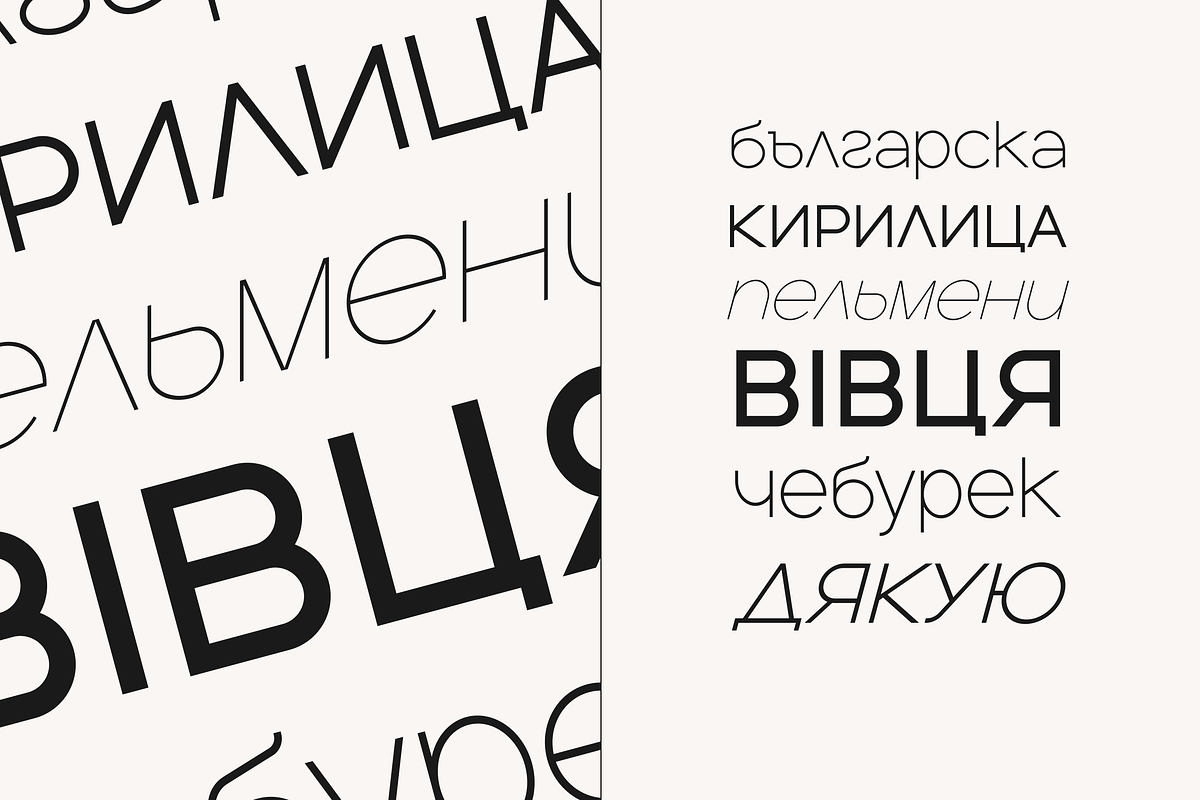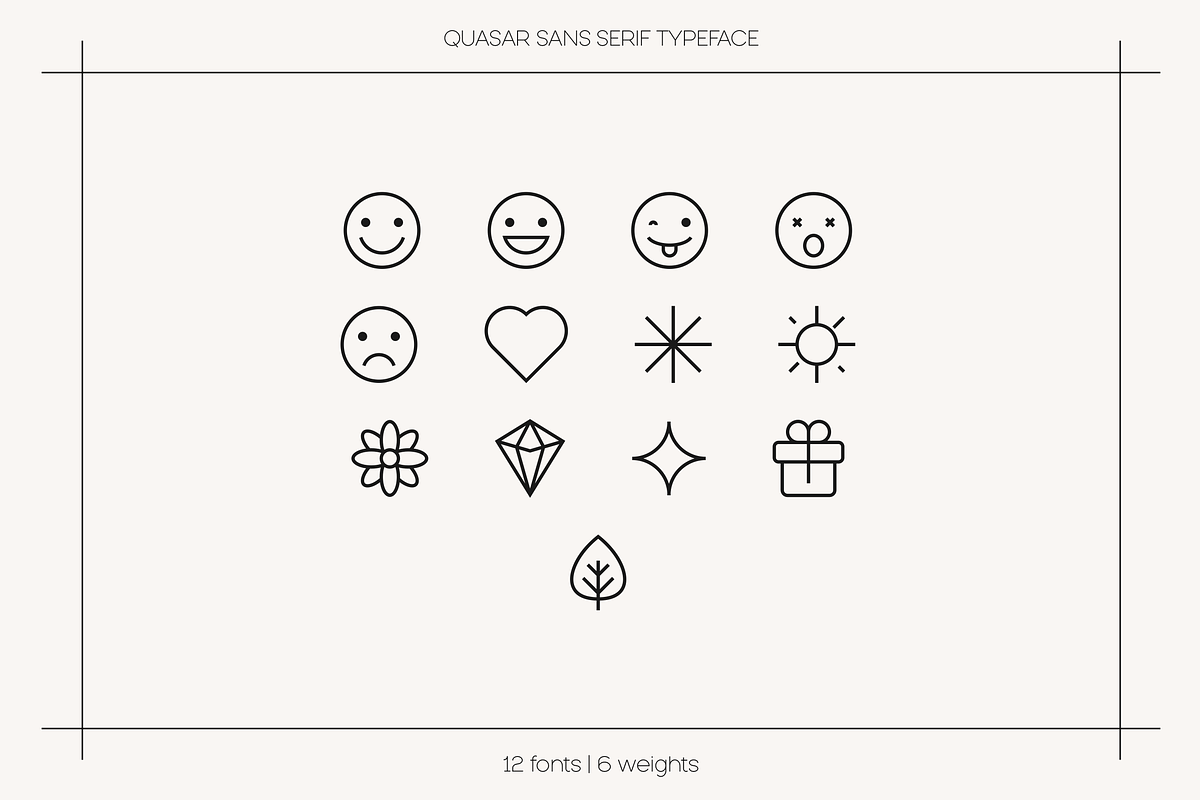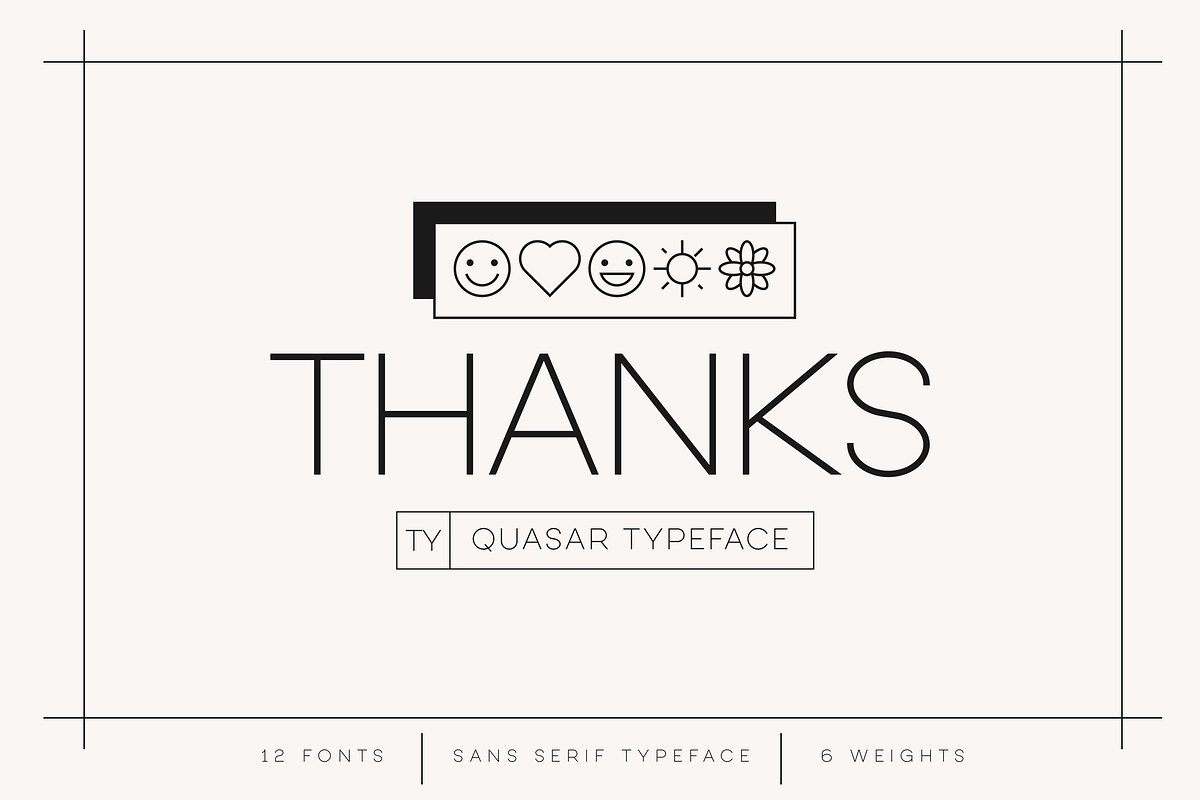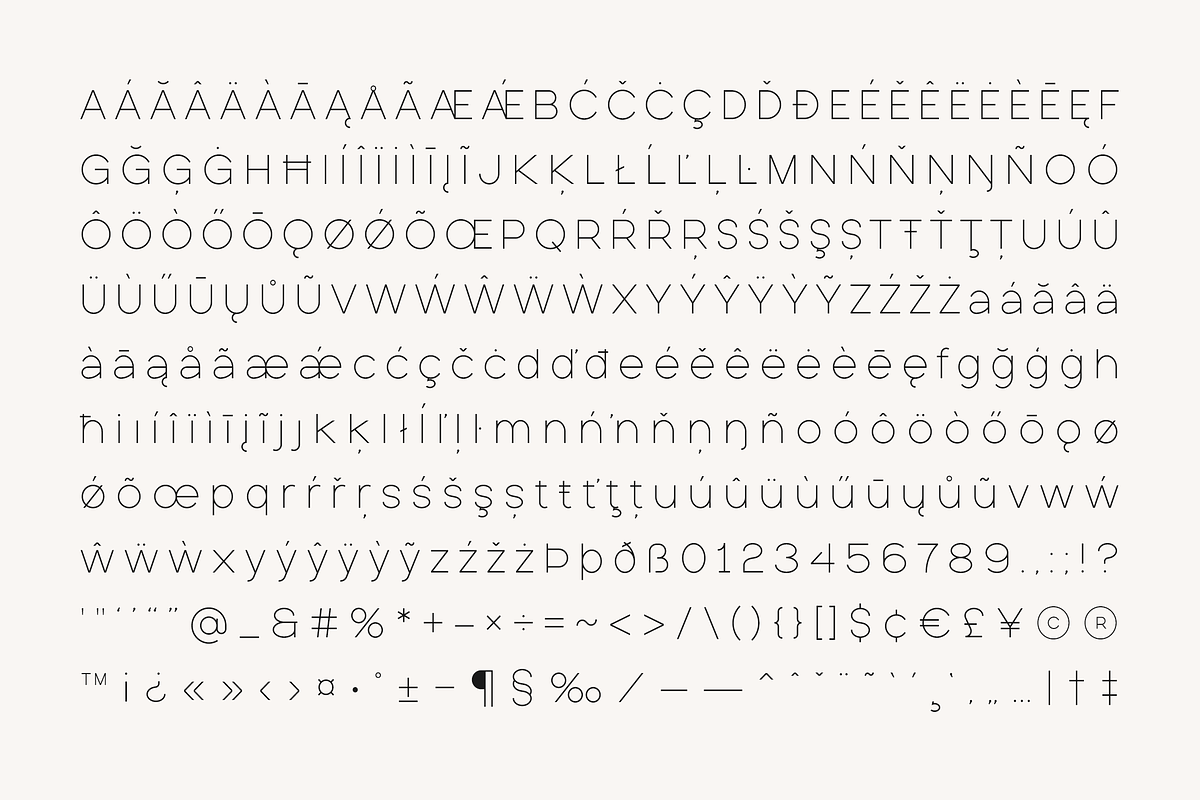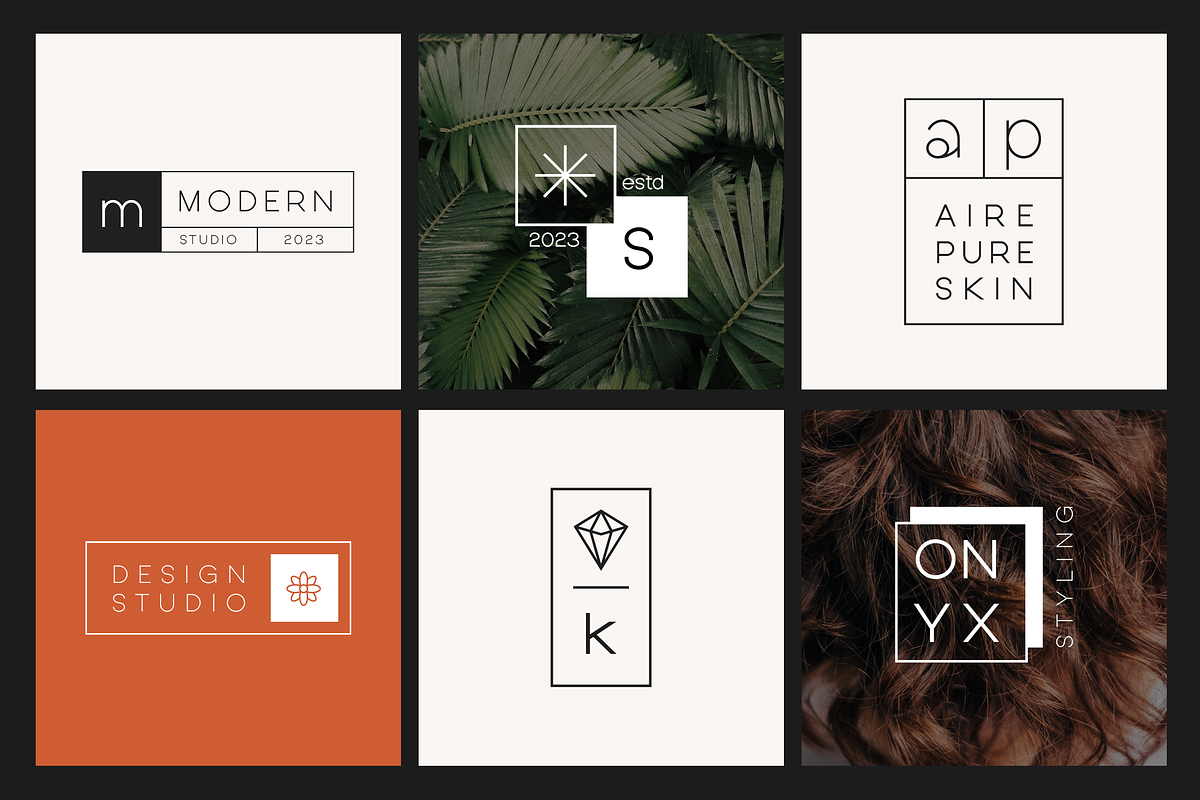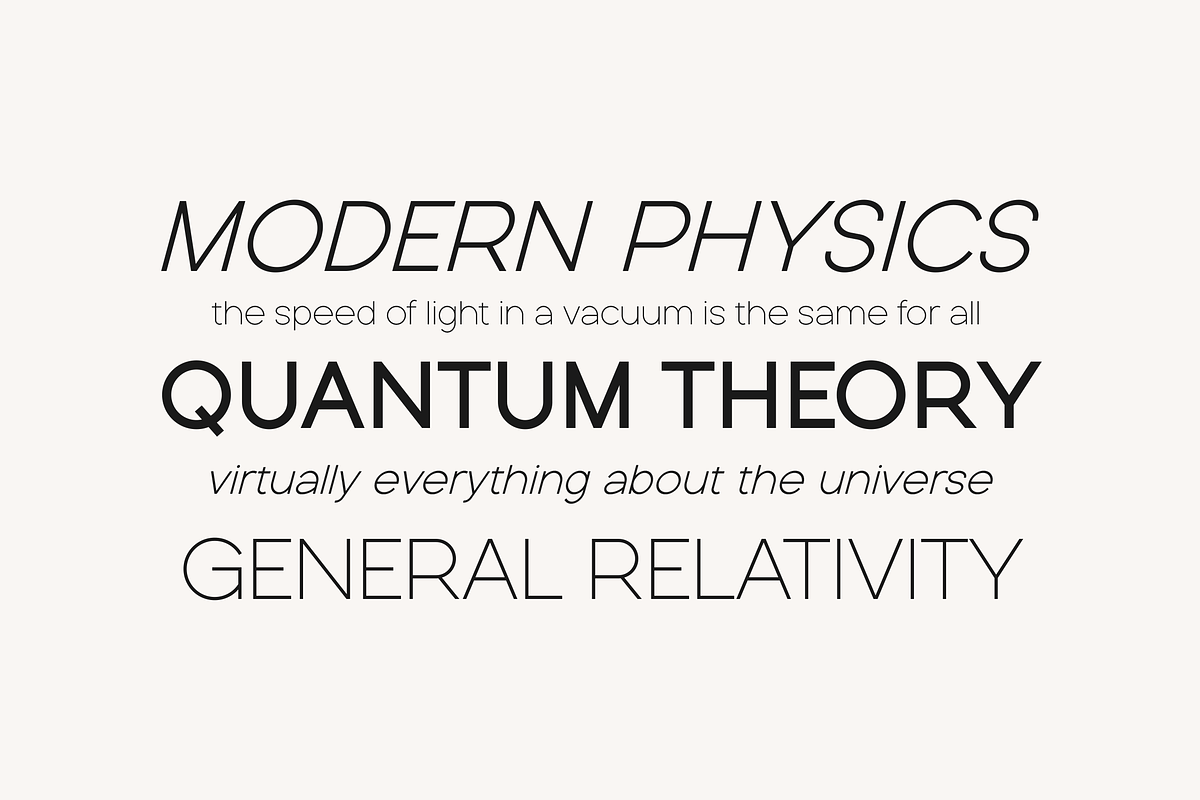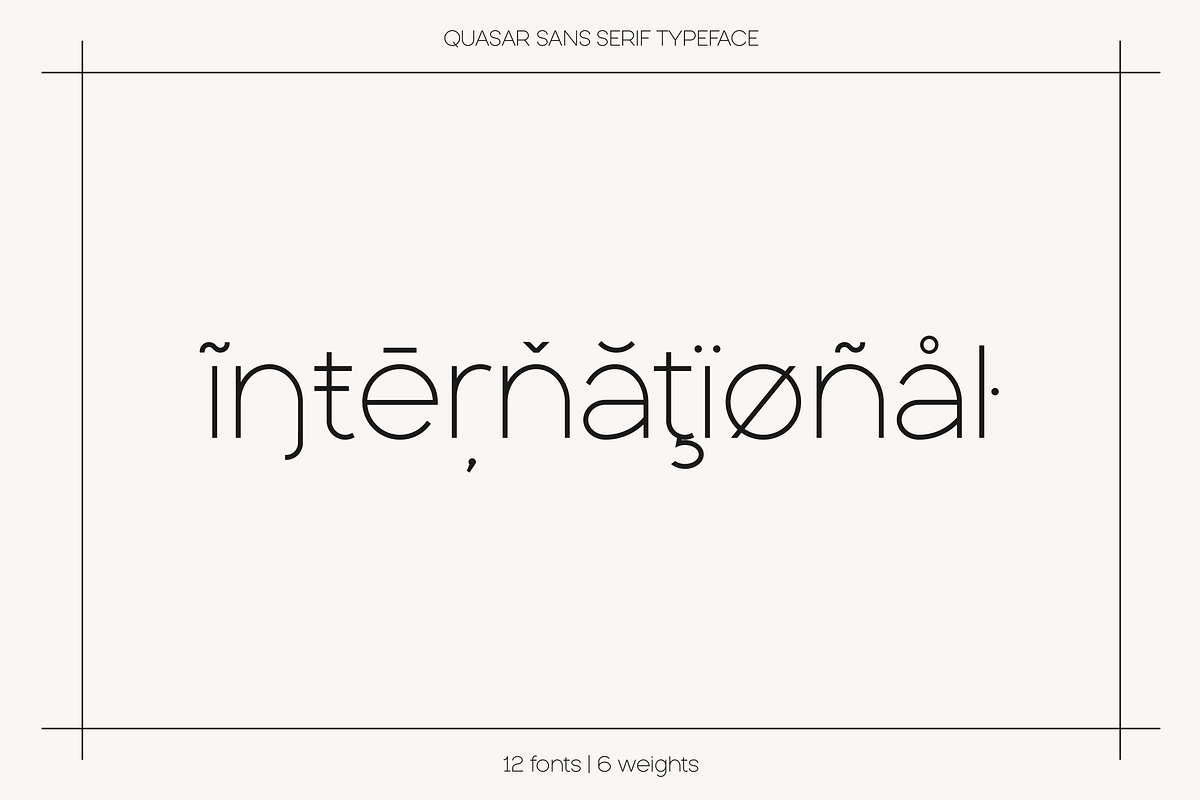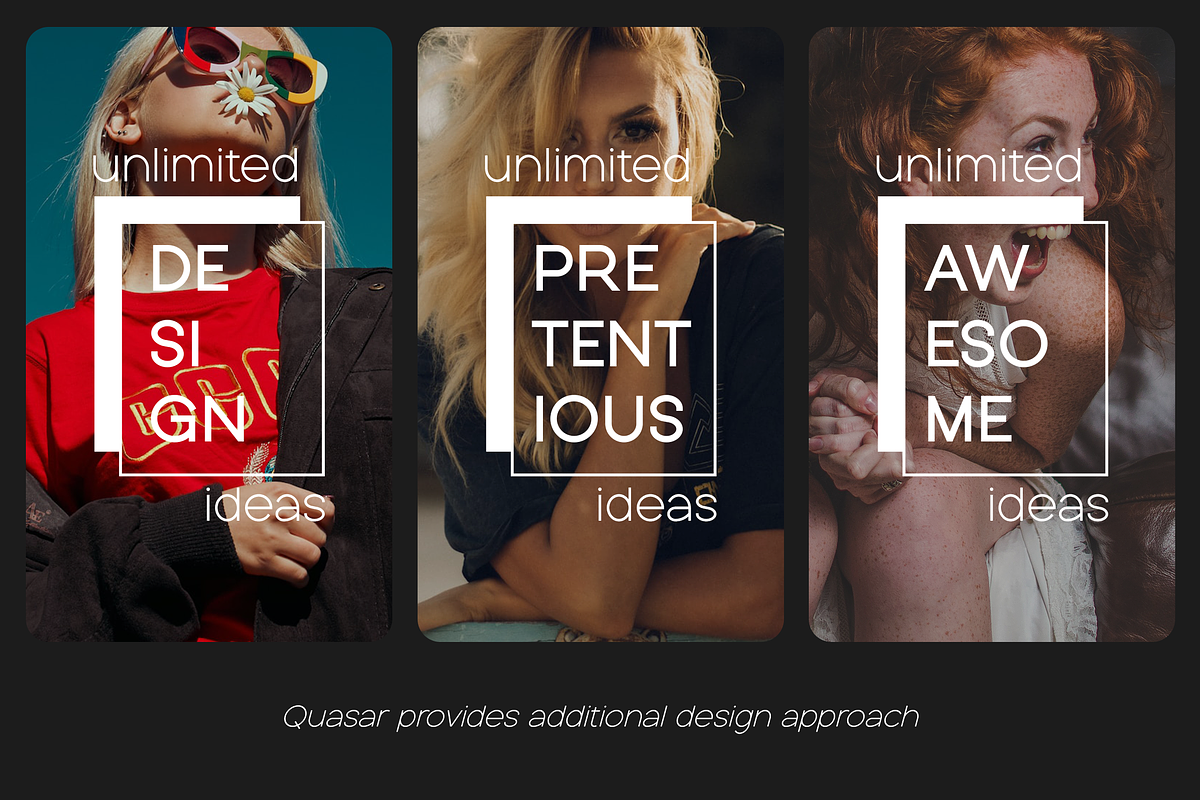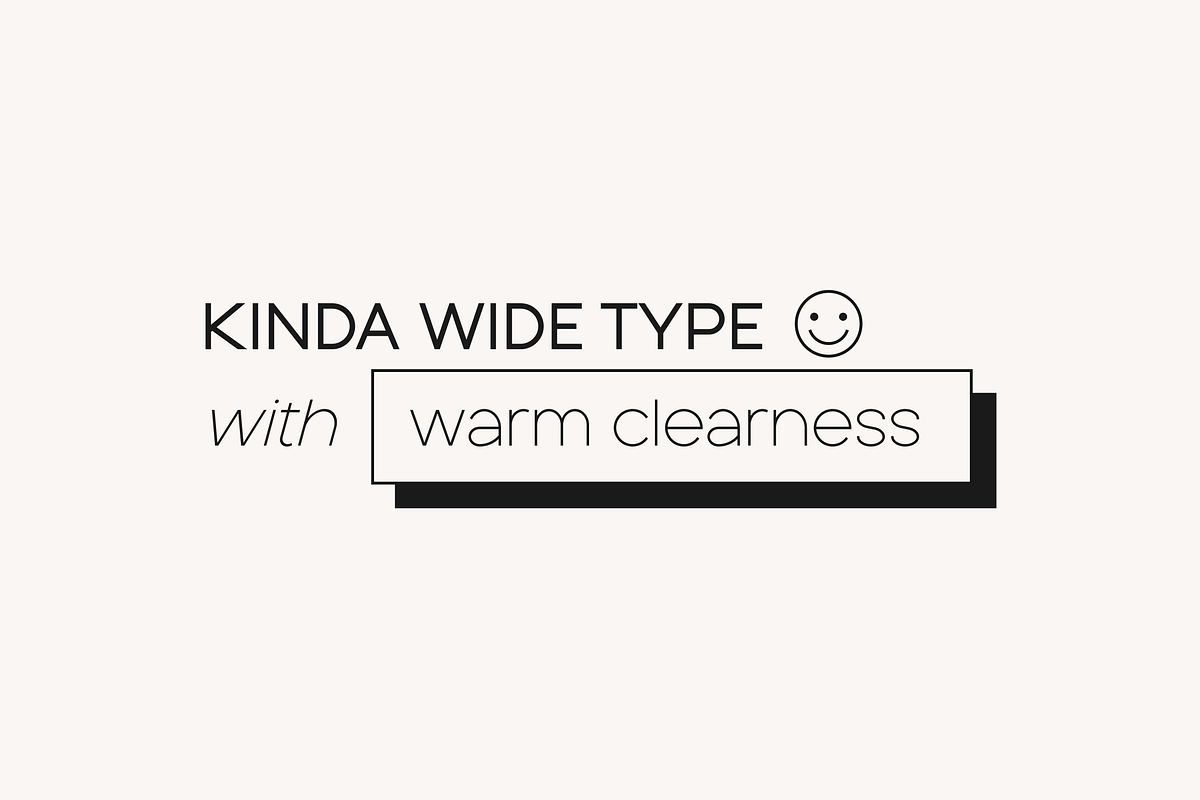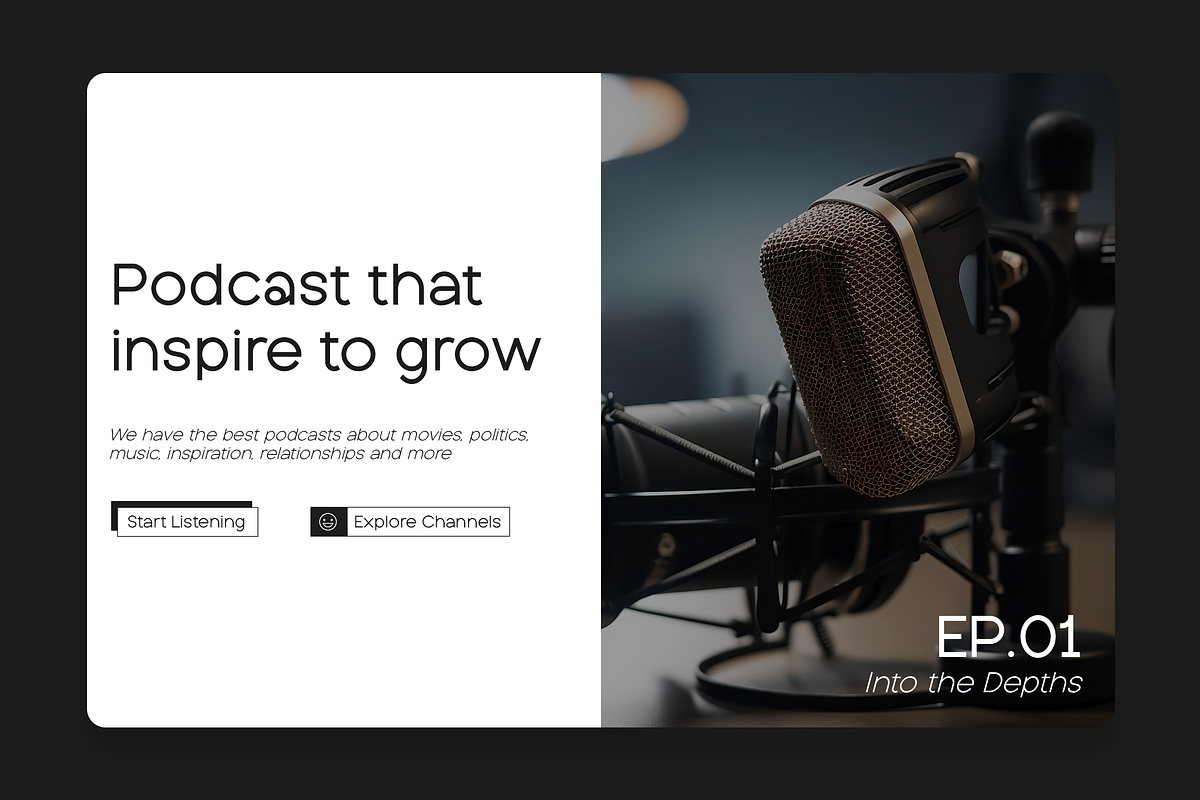
Introducing the delightful Quasar sans serif font – a true gem in the world of typography! With its clean and modern design, Quasar brings a touch of elegance to any project. This font family consists of not one, but six distinct weights, offering you a versatile range of options to choose from. Whether you're aiming for a bold and impactful statement or a more subtle and refined look, Quasar has you covered.
But that's not all – Quasar goes above and beyond by providing a total of 12 fonts, each carefully crafted to ensure consistency and harmony across your designs. And to make your creative journey even more exciting, Quasar comes complete with a collection of cool frames and icons that can effortlessly elevate your design projects to a new level of sophistication.
Diverse and inclusive, Quasar caters to a wide range of linguistic needs with its comprehensive support for both Latin and Cyrillic scripts. Its versatility doesn't stop there – Quasar is a true global citizen, offering support for an impressive total of 95 languages. This means your designs can speak directly to audiences around the world, fostering connection and understanding across cultures.
So, whether you're designing for print, digital, branding, or any other creative venture, Quasar is the reliable companion that adds a touch of style and professionalism to your work. Its clean lines and modern flair make it an ideal choice for everything from website headers to editorial layouts, ensuring that your design projects will shine with a timeless beauty that captivates and engages.
Language Support : Belarusian, Bosnian, Bulgarian, Chechen, Macedonian, Russian, Serbian, Afrikaans, Albanian, Asu, Basque, Bemba, Bena, Breton, Chiga, Colognian, Cornish, Czech, Danish, Dutch, Embu, English, Estronian, Faroese, Filipino, Finnish, French, Friulian, Galician, Ganda, German, Gusii, Hungarian, Indonesian, Irish, Italian, Jola-Fonyi, Kabuverdianu, Kalenjin, Kamba, Kikuyu, Kinyarwadna, Litvian, Lithuanian, Lower Sorbian, Luo, Luxembourish, Luyia, Machame, Makhuwa-Meetoo, Makonde, Malagasy, Maltese, Manx, Meru, Morisyen, North Ndebele, Norwegian Bokm ål, Norwegian Nynorsk, Nyankole, Ormo, Polish, Portuguese, Quechua, Romanian, Romansh, Rombo, Rundi, Rwa, Samburu, Sango, Sangu, Scottish Gaelic, Sena, Shambala, Shona, Slovak, Soga, Somali, Spanish, Swahili, Swedish, Swiss German, Taita, Teso, Turkish, Ukrainian, Upper Sorbian, Uzbek (Latin), Volap ük, Vunjo, Walser, Welsh, Western Frisian, Zulu